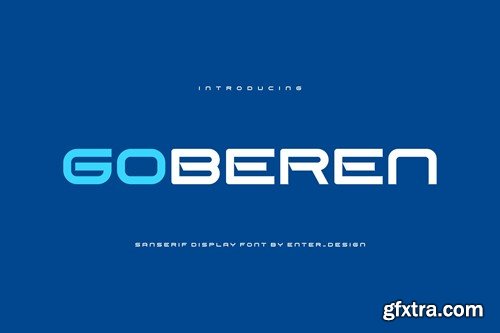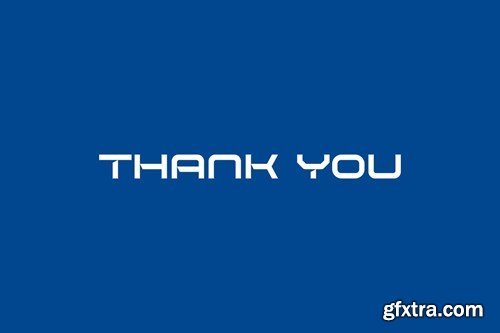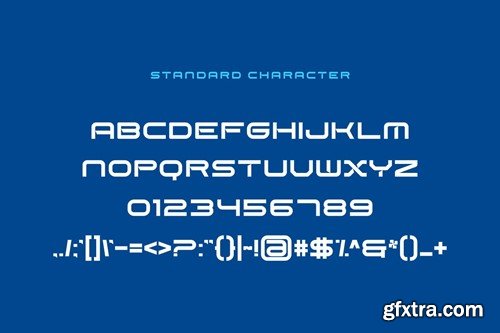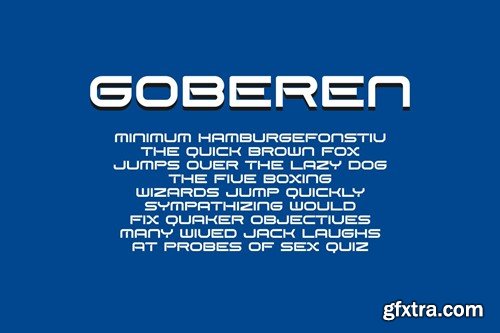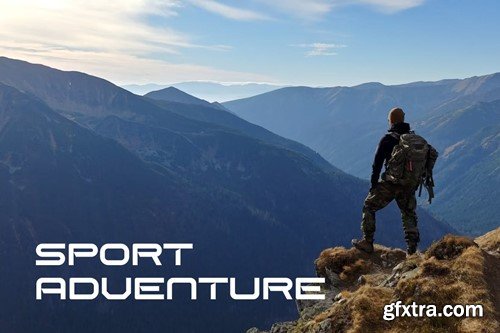
Goberen Font
Introducing our new product Goberen Font - Modern Font
Goberen Font - Modern Font is a bold and authentic display font. The font is suitable for any branding project like logo, esport, and many more. outstanding in a wide range of contexts.